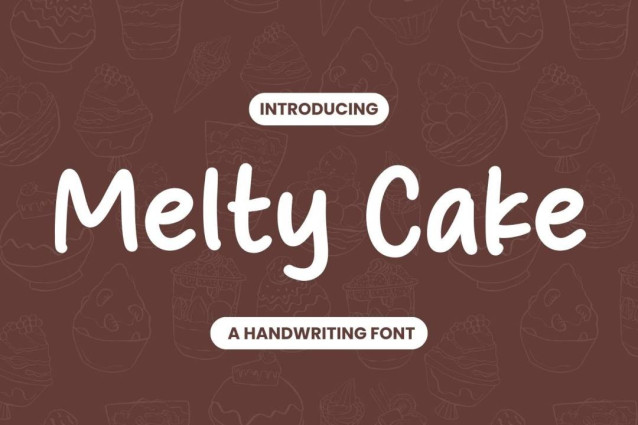
Melty Cake Font
Melty Cake Font is a simple and friendly handwritten font. Its natural and unique style makes it incredibly fitting to a large pool of designs. The only limit is your imagination!